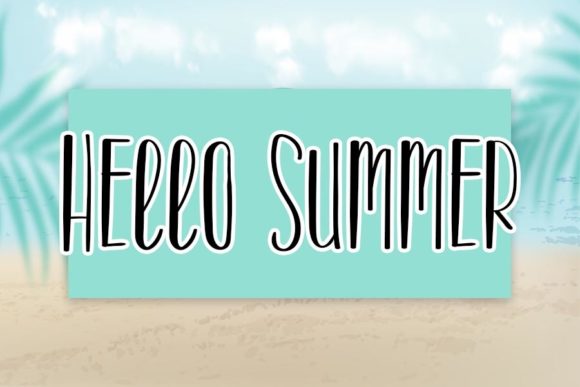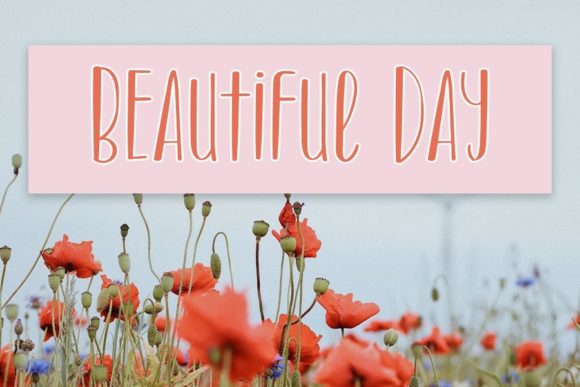
Little Butterfly Font
db-ku.com - Script & Handwritten -- Little Butterfly is a cute and trendy handwritten font. Its natural and unique style makes it incredibly fitting to a large pool of designs. The only limit is your imagination!